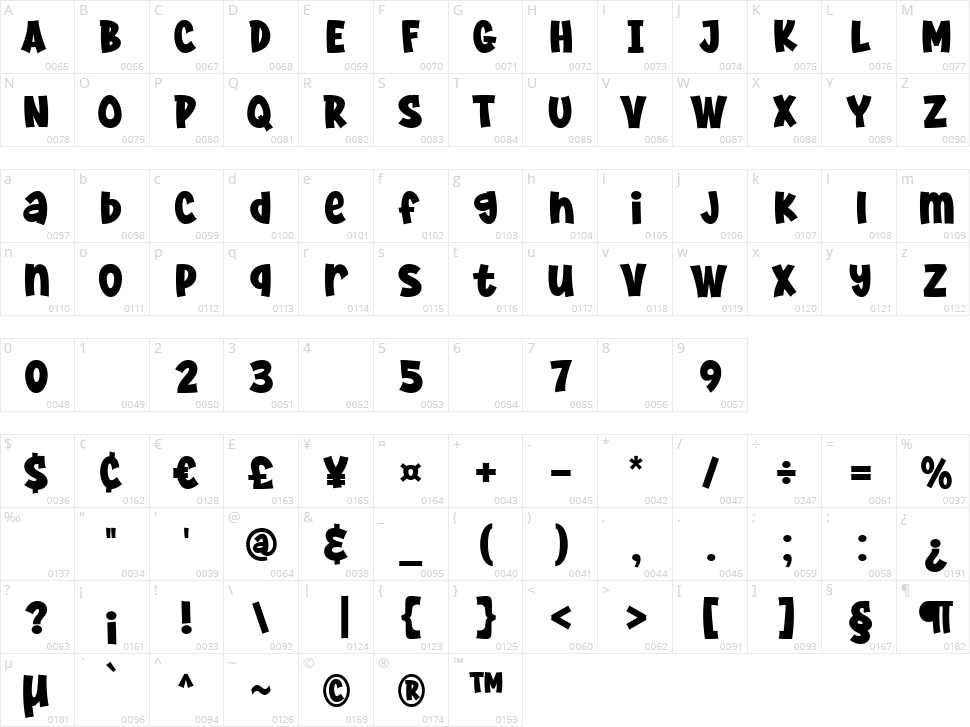
Super Potato
Introducing Super Potato: a font so fun, it's practically spudtacular! Imagine a playful blend of fancy dandies and mischievous cartoon characters, all dressed up in spud suits and ready to boogie.